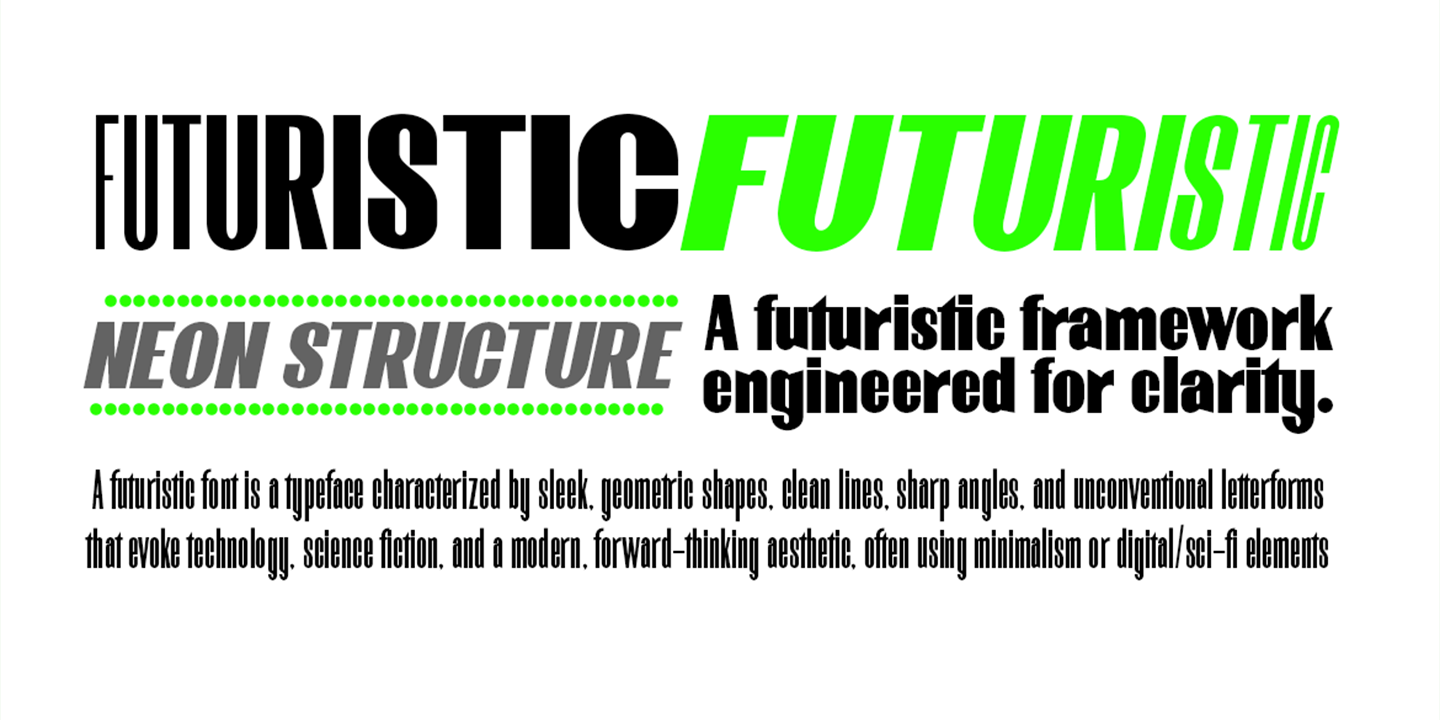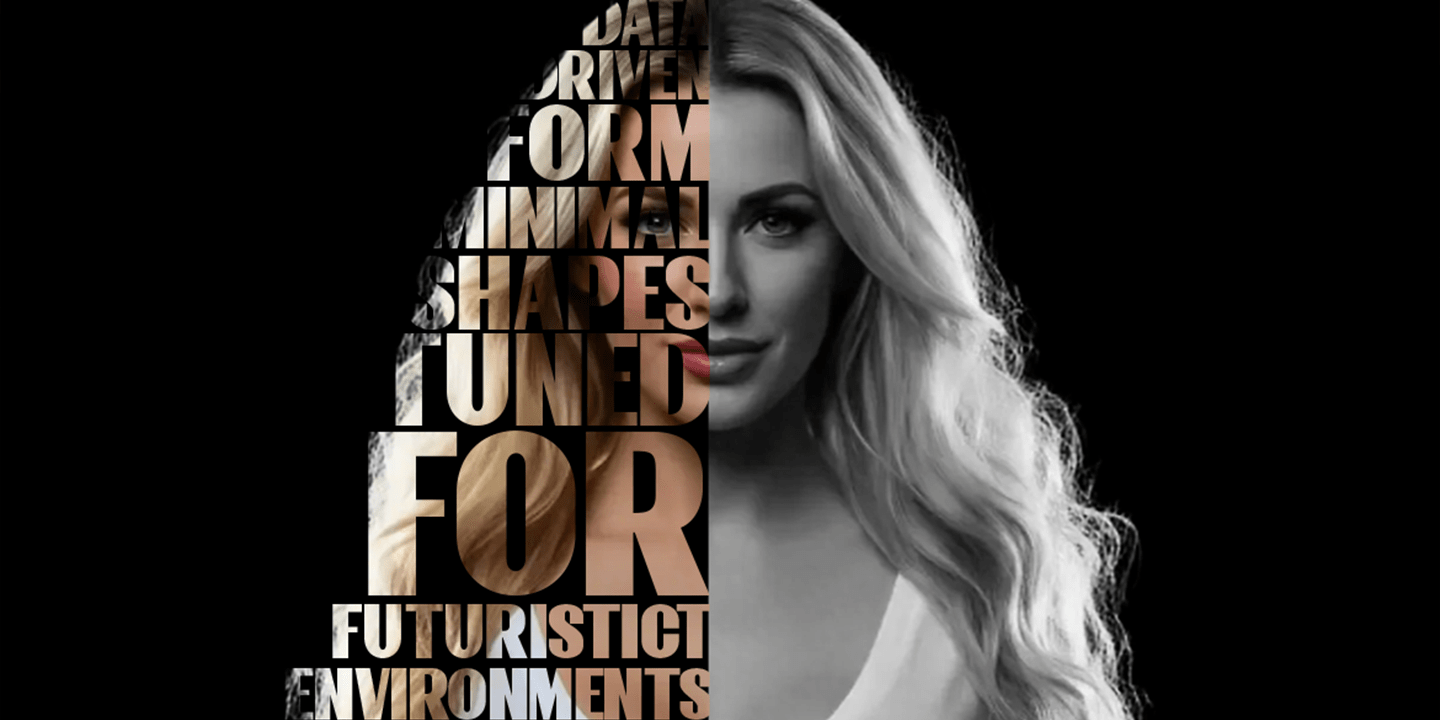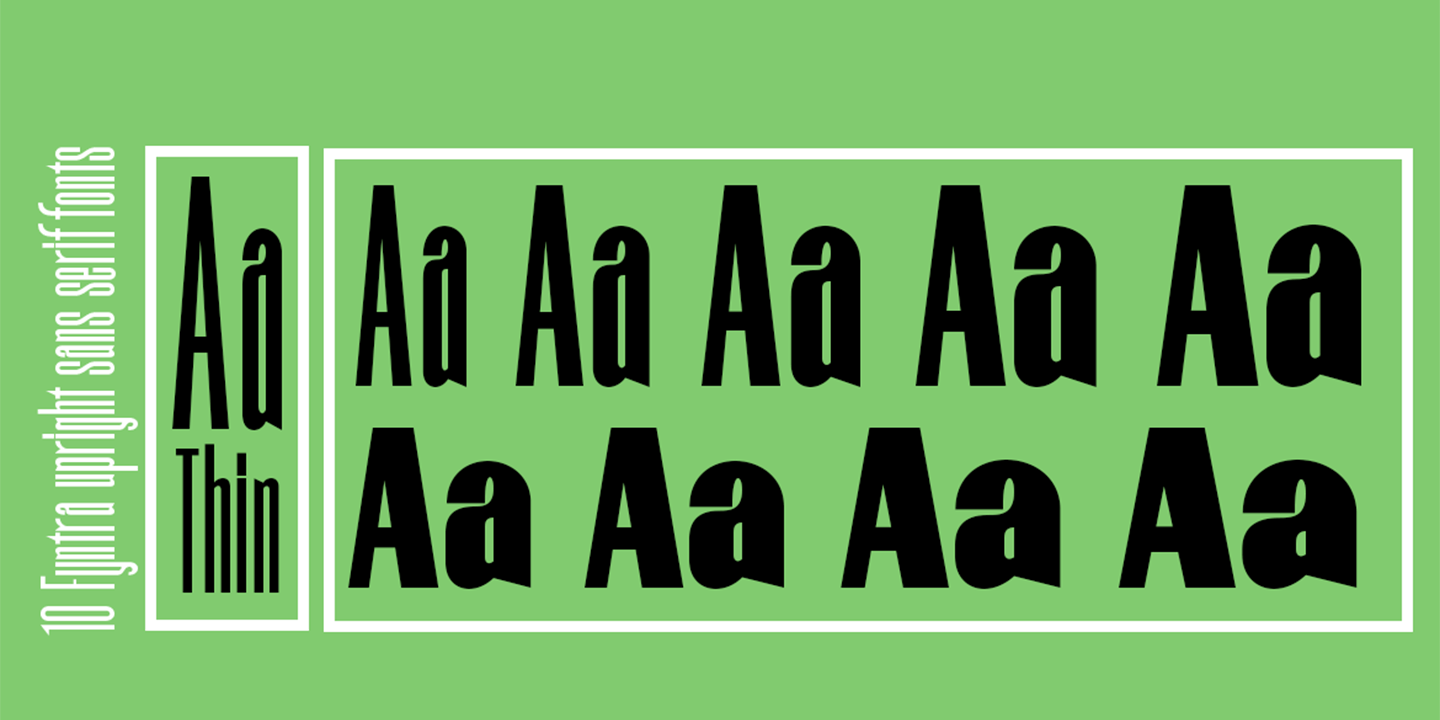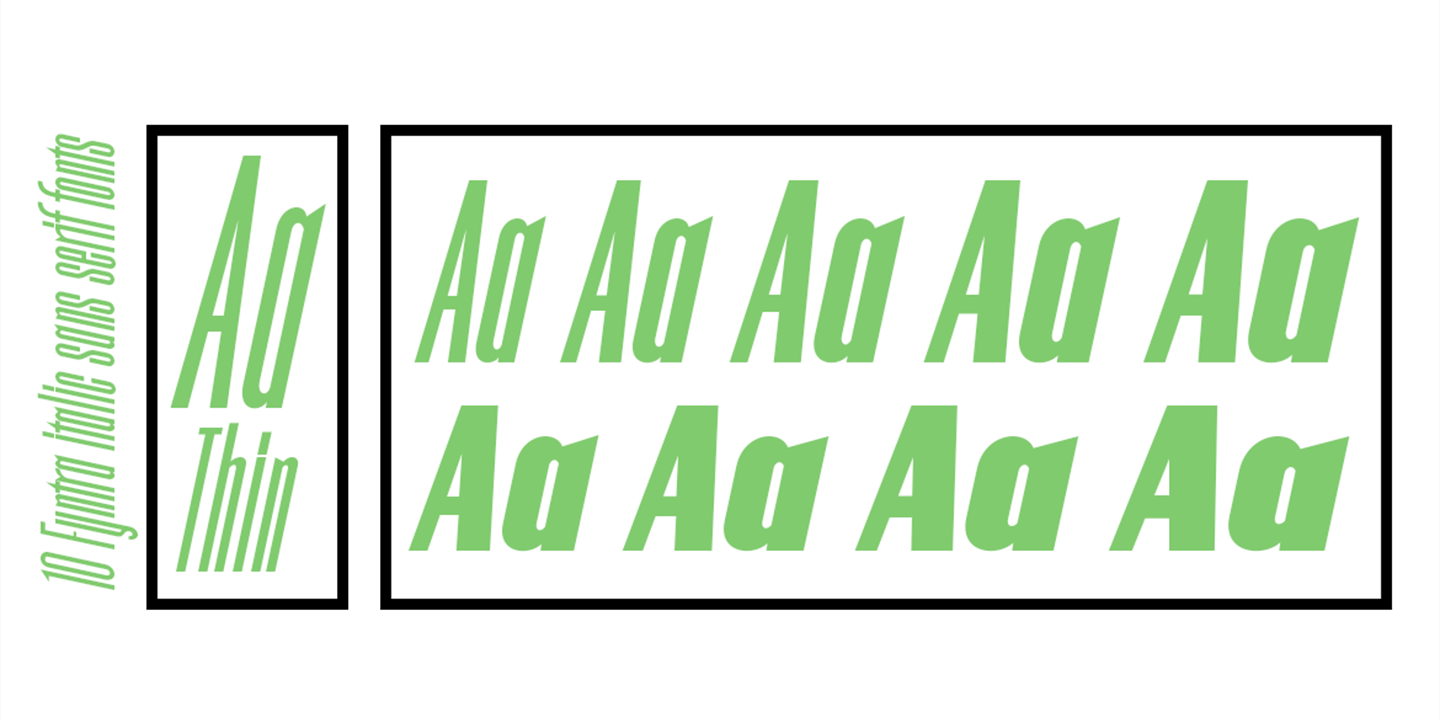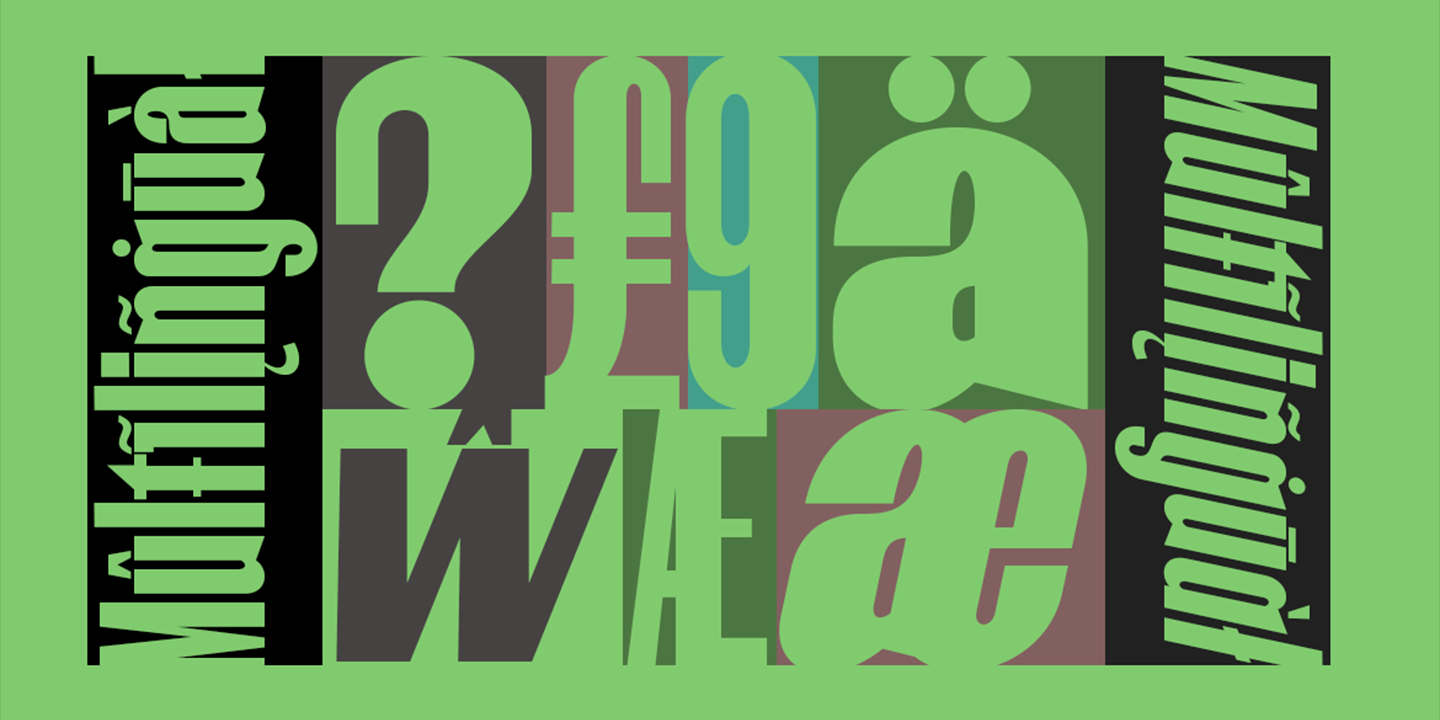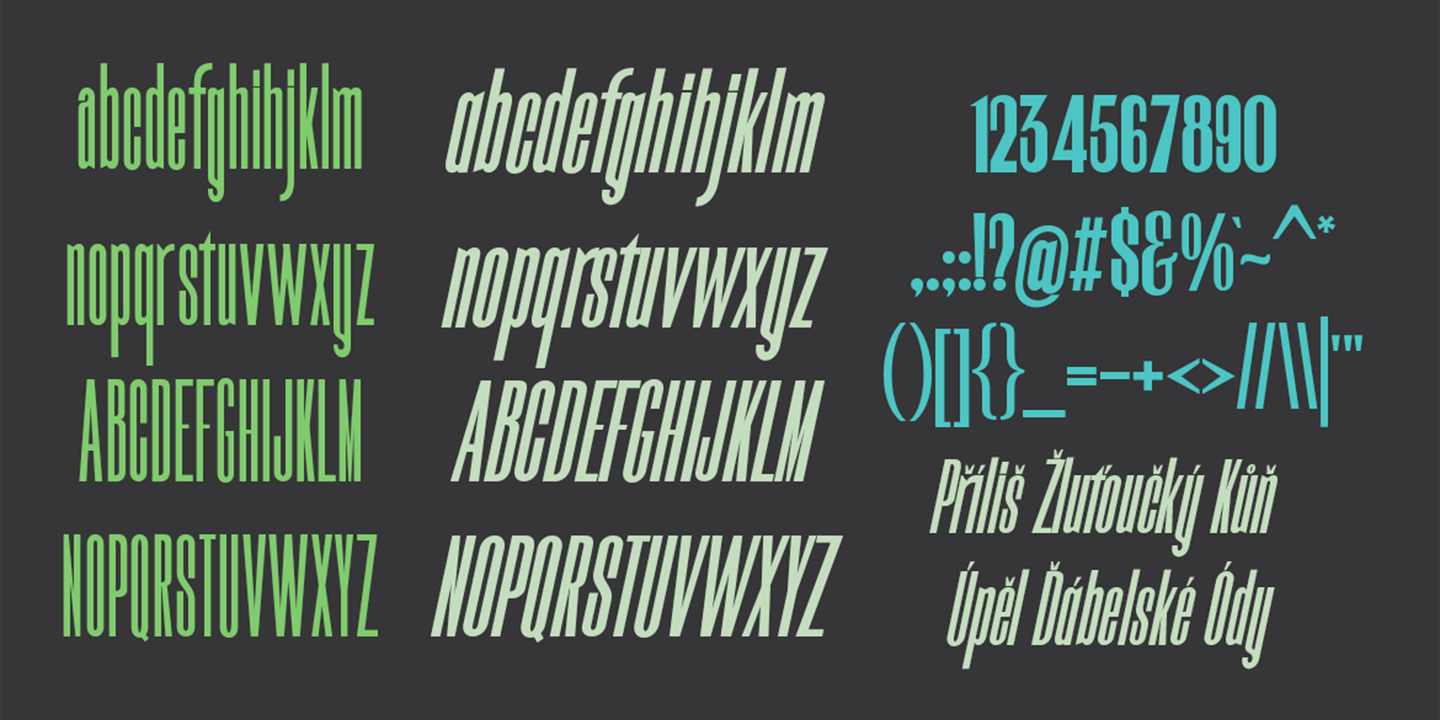
Fyntra Cyber-Modern Narrow Sans Serif
Font Family by Groen Studio
**Fyntra — Cyber-Modern Narrow Sans Serif**
**Fyntra** is a sleek cyber-modern sans serif designed with ultra-narrow proportions and high-precision geometry. Its clean structure, sharp angles, and futuristic flow make it a perfect choice for digital interfaces, sci-tech branding, modern posters, gaming visuals, and any design that calls for a fast, high-tech aesthetic.
With a full weight range from **Thin to Extra Black**, Fyntra gives you complete control over mood and intensity — from subtle minimalism to bold, high-impact display typography. Each style is engineered for clarity, balance, and consistent rhythm, creating a typeface that feels both modern and mechanically refined.
If you’re crafting futuristic layouts, UI dashboards, cyberpunk branding, or sleek editorial visuals, **Fyntra brings a polished, next-era edge** to your typography.
**What’s Inside:**
* Thin → Extra Black
* Ultra-narrow modern design
* Clean, geometric construction
* Uppercase & lowercase
* Numerals & punctuation
* Multilingual support
**Perfect For:**
* Tech & futuristic branding
* UI/UX & dashboards
* Sci-fi posters & digital artworks
* Gaming titles & esports visuals
* Modern editorial layouts
* Minimal or cyber-themed designs